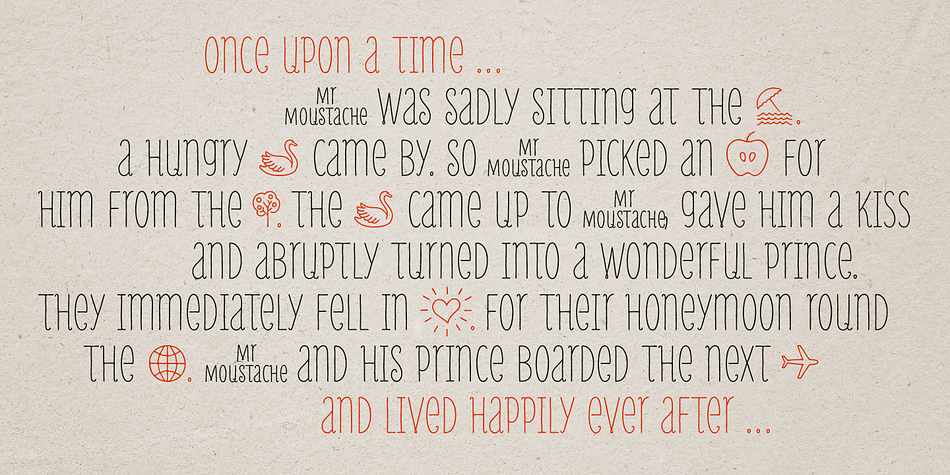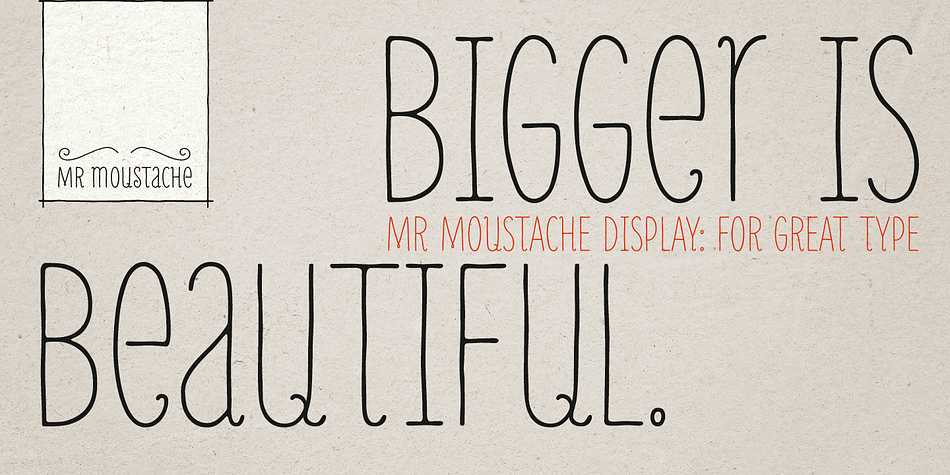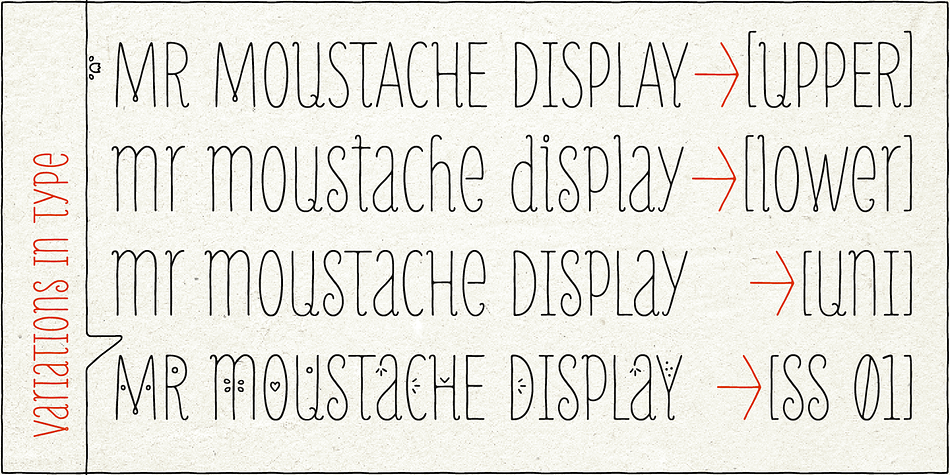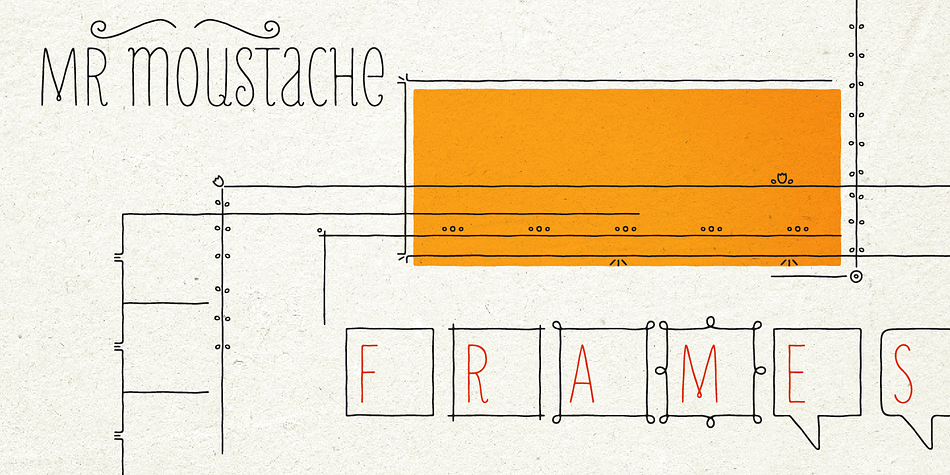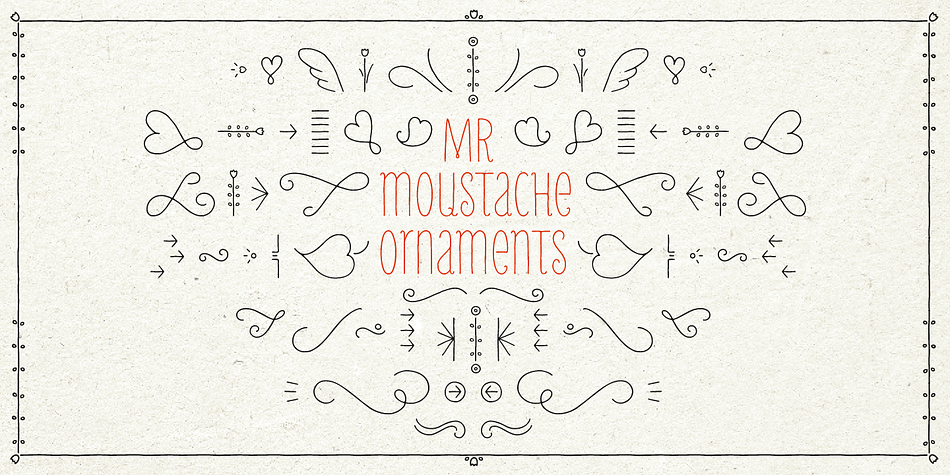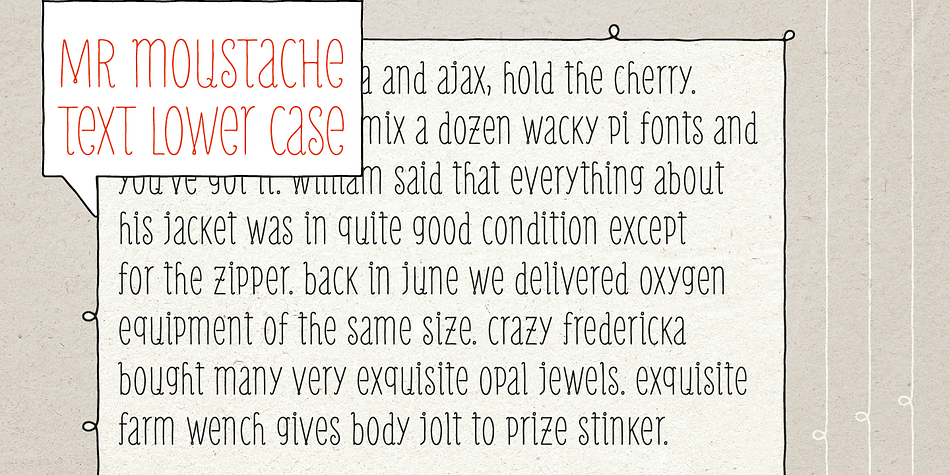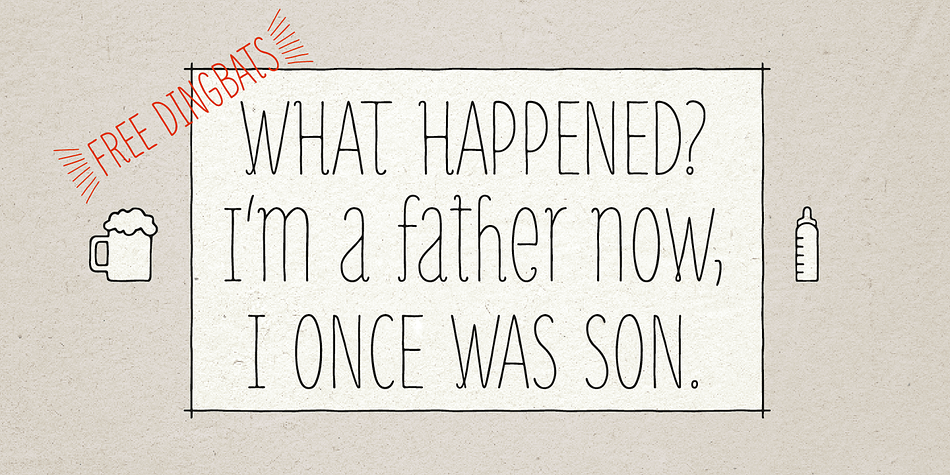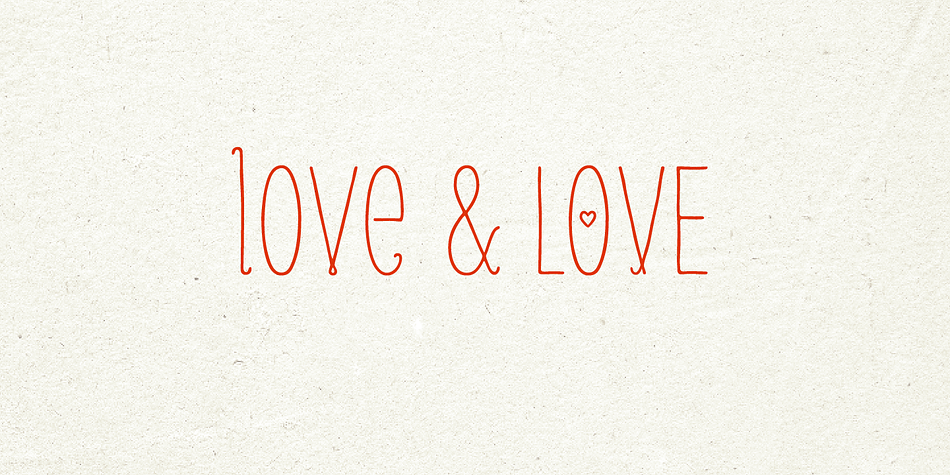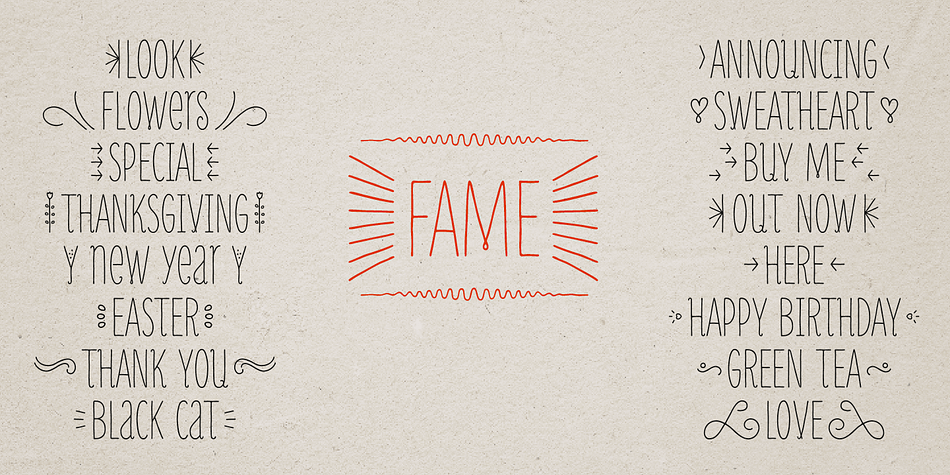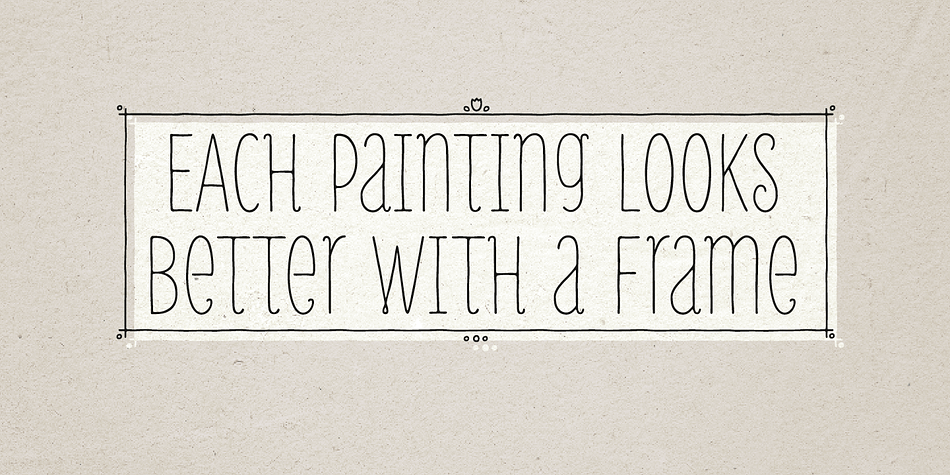
MrMoustache is a hand display and dingbat font family. This typeface has ten styles and was published by FaceType.
Extra thin letters, condensed and with a handwritten touch, Mr Moustache gives a warm and friendly feeling to your layout. Mix upper- and lowercase letters according to your own liking. Furthermore, choose between a Unicase and an almost Unicase appearance.
Use Mr Moustache Display for headlines and anything BIG. Use Mr Moustache Text for small type sizes or large volumes of text.
Mr Moustache is accompanied by frames, ornaments and dingbats in regular and solid, that can be layered for multicolored effects, providing endless design-possibilities.
Mr Moustache offers OpenType features, including contextual alternates and stylistic sets. The font family works best with frame-based layout programs that support full OpenType functionality.
Designed by Georg Herold-Wildfellner.